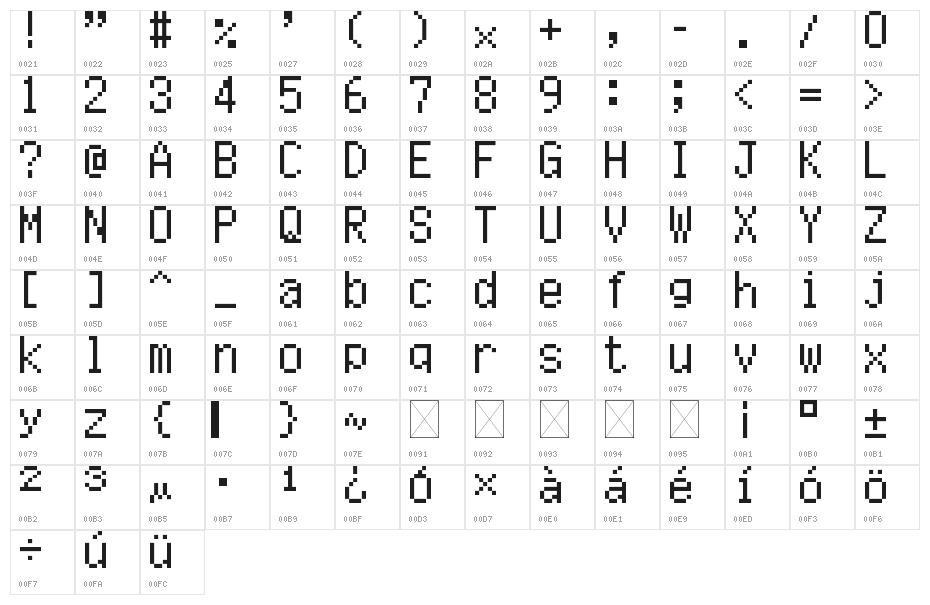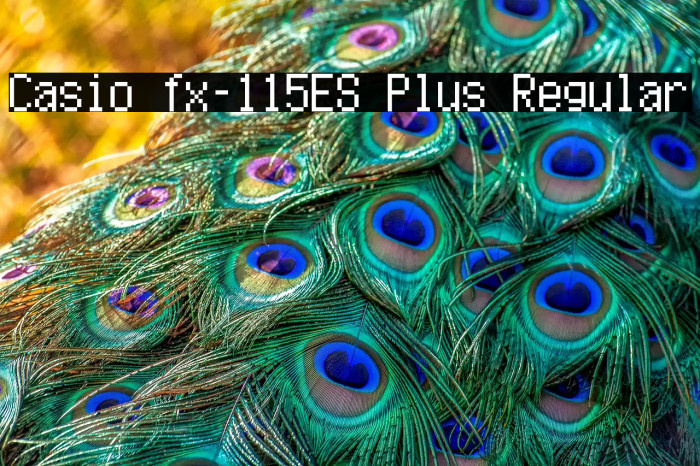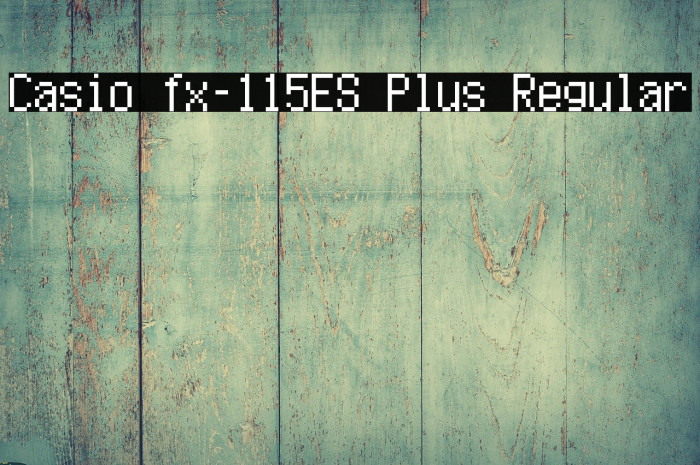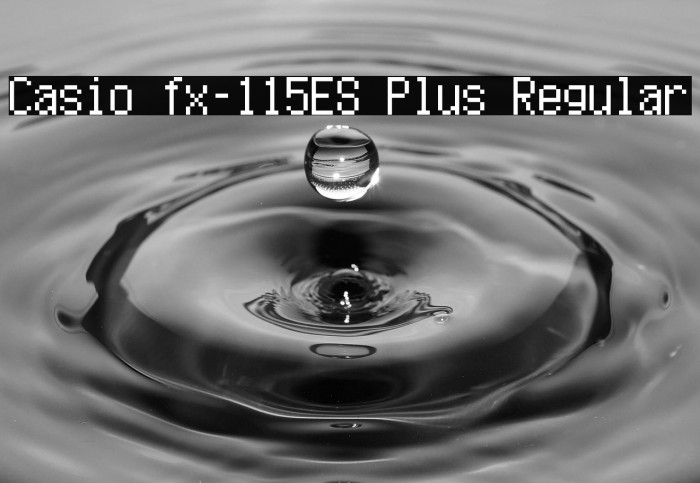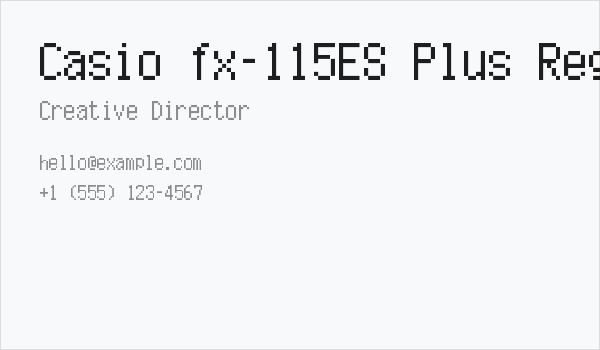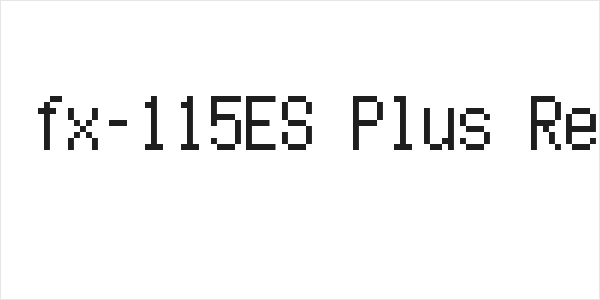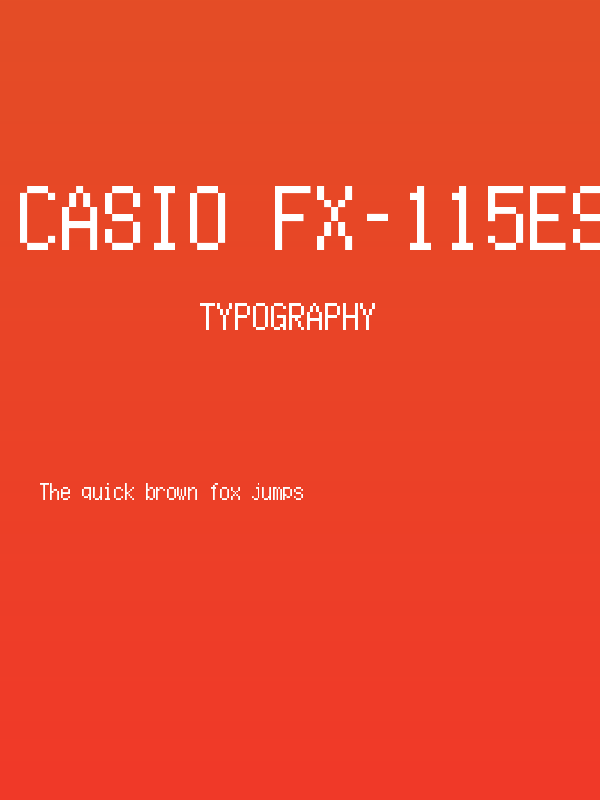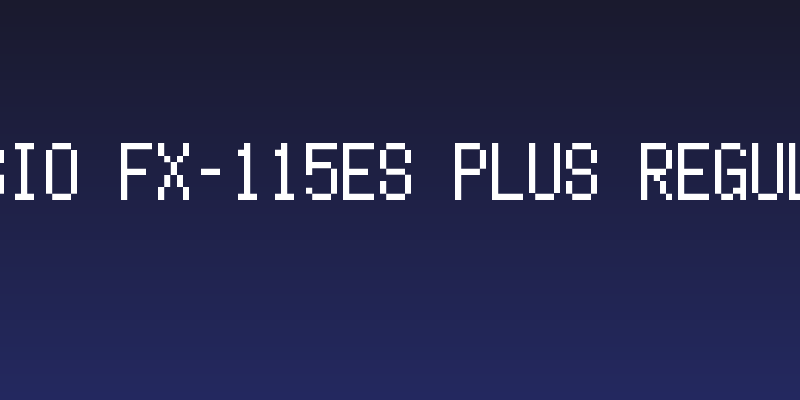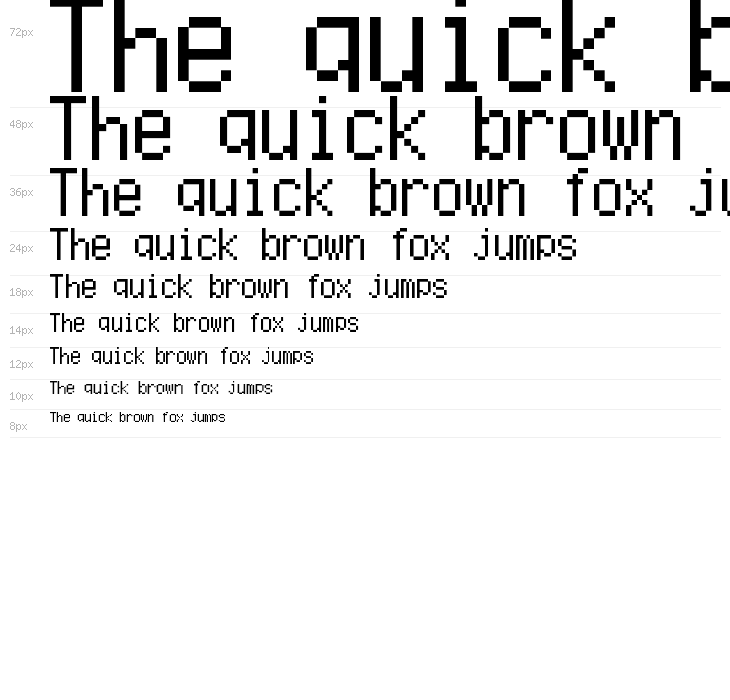
Casio fx-115ES Plus Regular Font
Casio fx-115ES Plus Regular Description
This font features a pixelated, monospaced design reminiscent of early digital displays and calculators. Each character is constructed with a grid-like precision, offering a retro aesthetic that is both functional and nostalgic. The uniformity in character width ensures a consistent and orderly appearance, making it ideal for technical or digital-themed projects. The uppercase and lowercase letters maintain a similar height, enhancing readability in compact spaces. Numbers and special characters are clearly defined, adhering to the same pixelated style, which adds to the cohesive look of the font.
Overall StyleRetro, Digital
Use CaseDigital displays, Coding, Technical documents
Proposed ProjectsIdeal for retro-themed designs, digital interfaces, coding environments, and technical documentation.